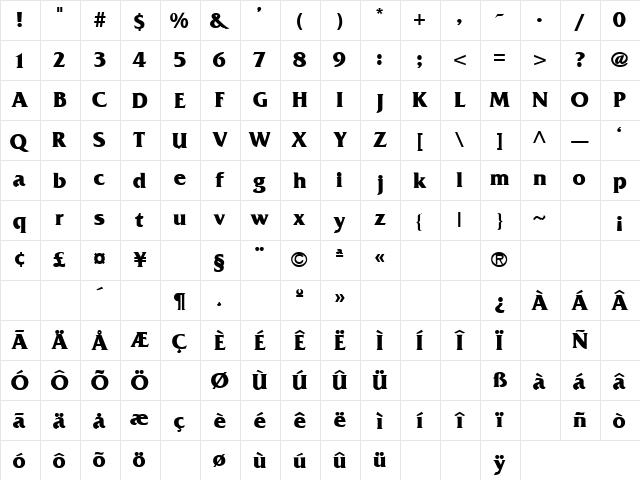
Keep Talking 8 Regular
Keep Talking 8 takes a measured approach to typography — its balanced proportions and neutral character make it a reliable workhorse for both digital and print work.